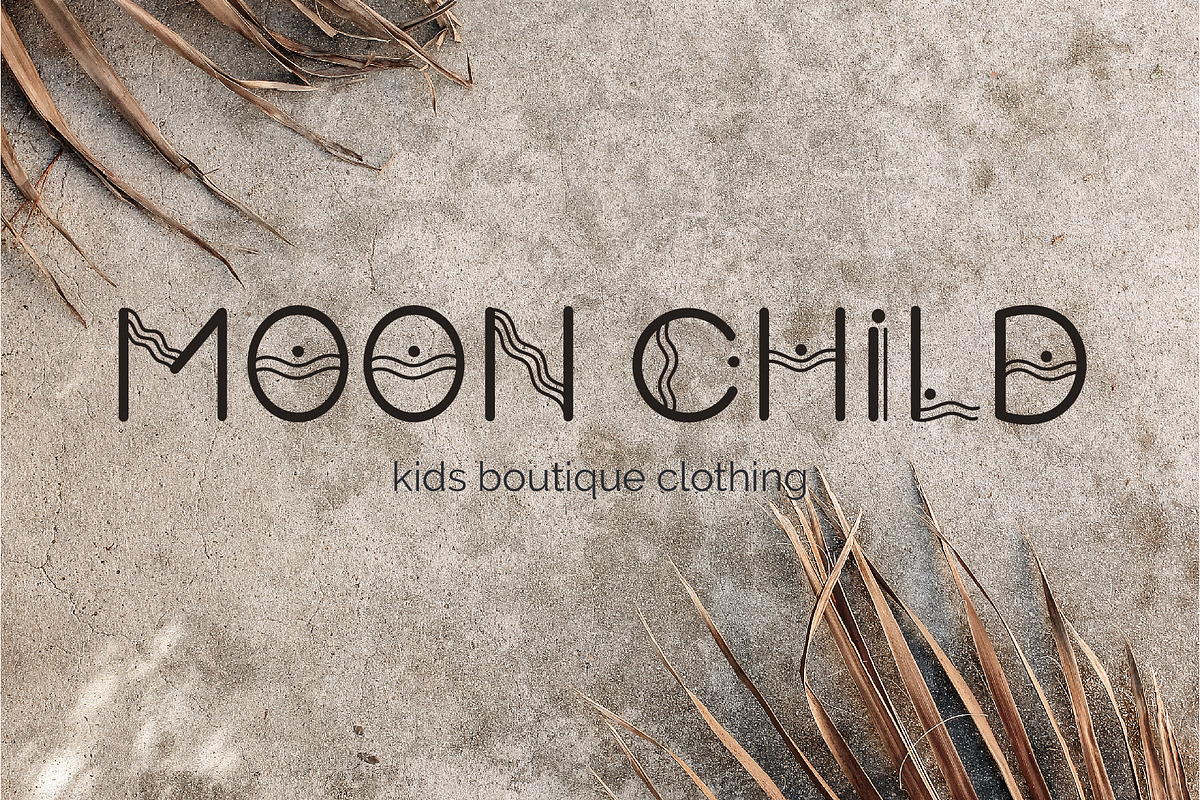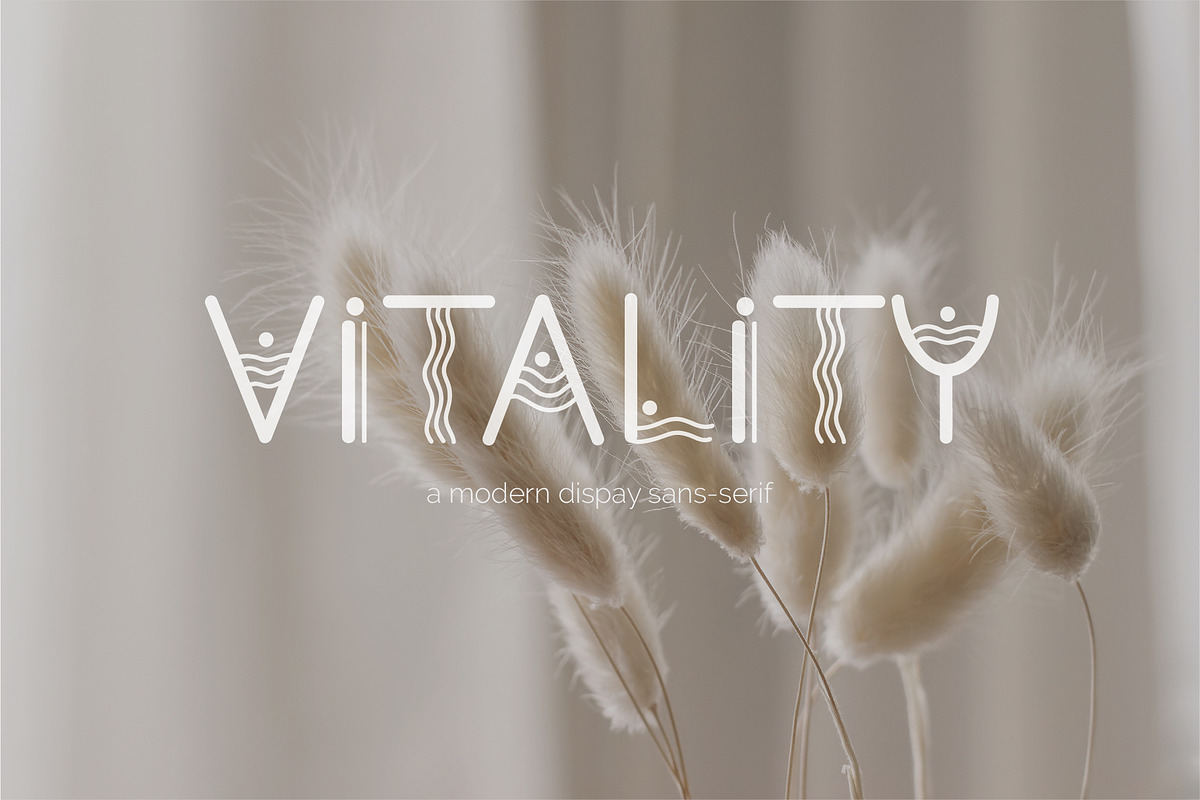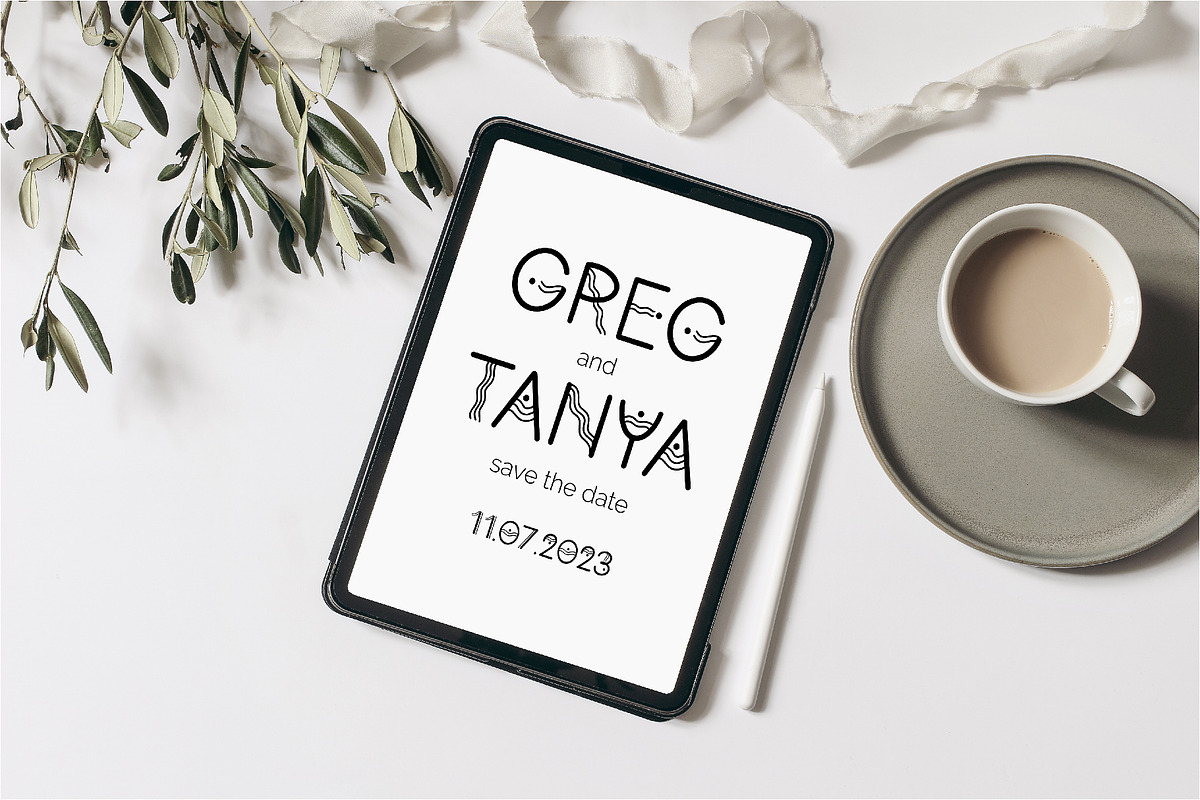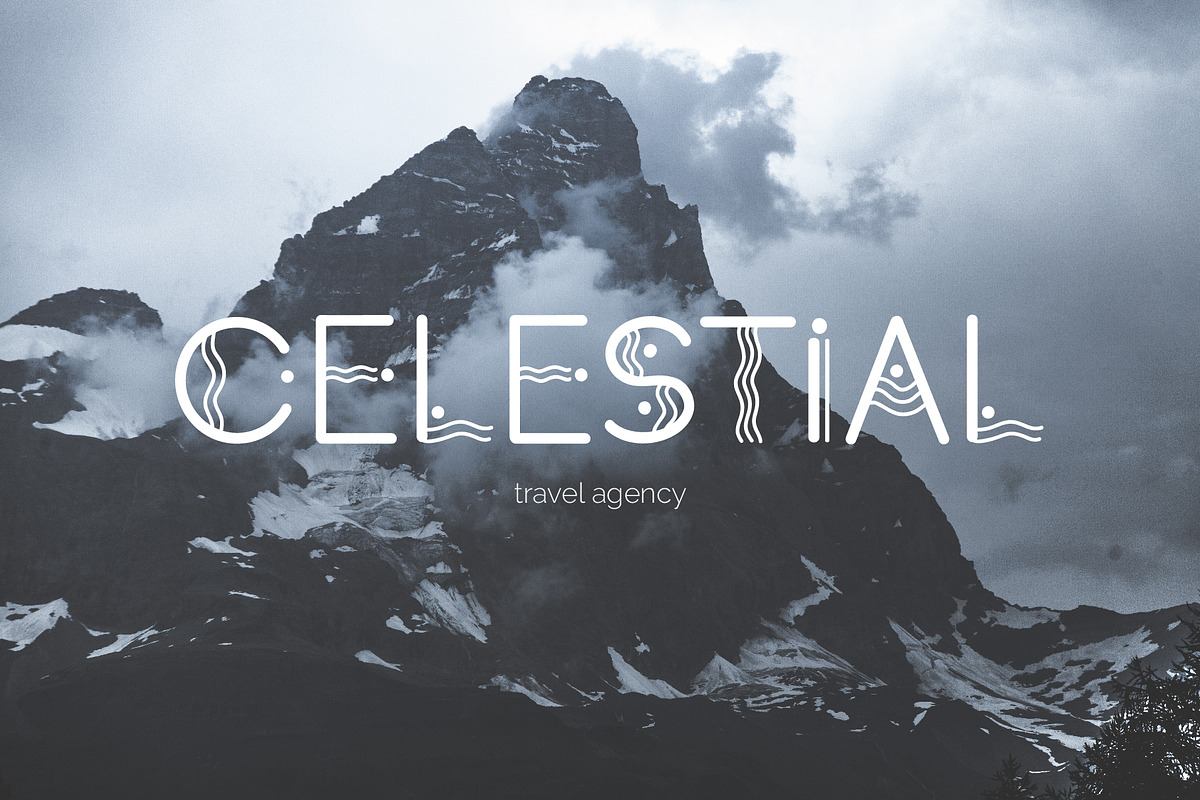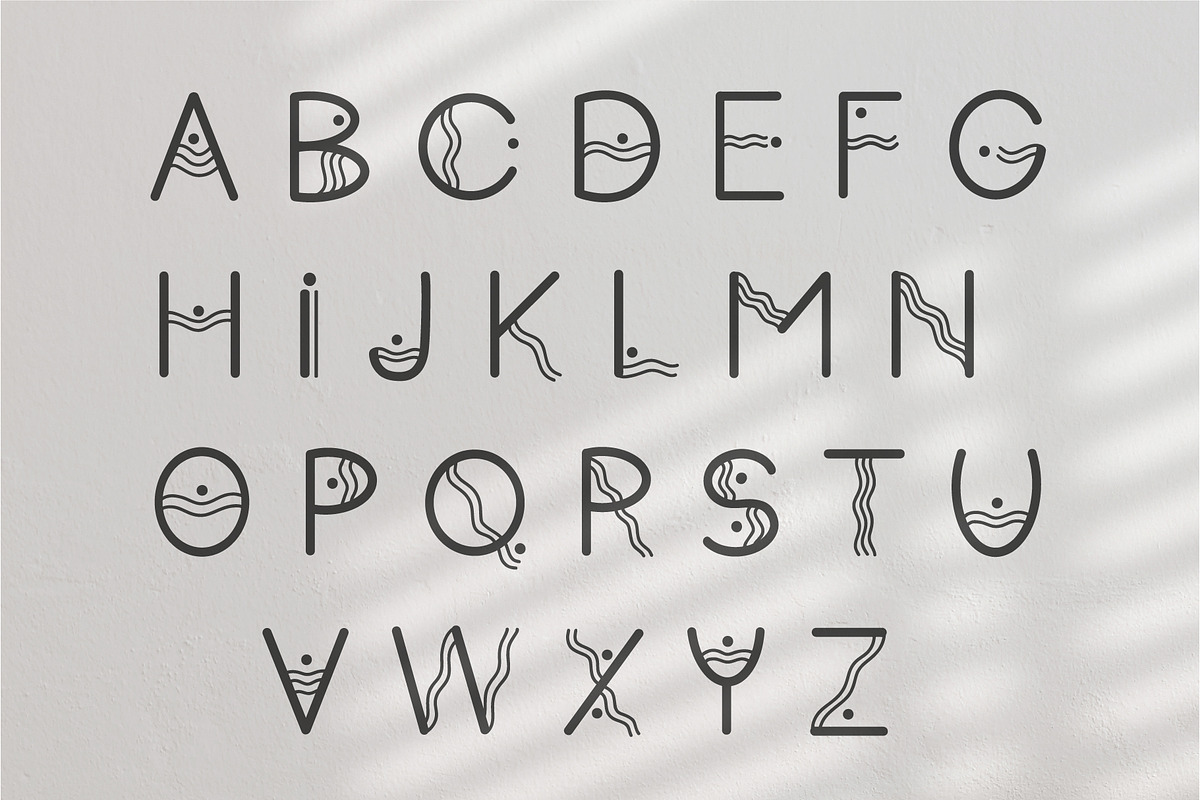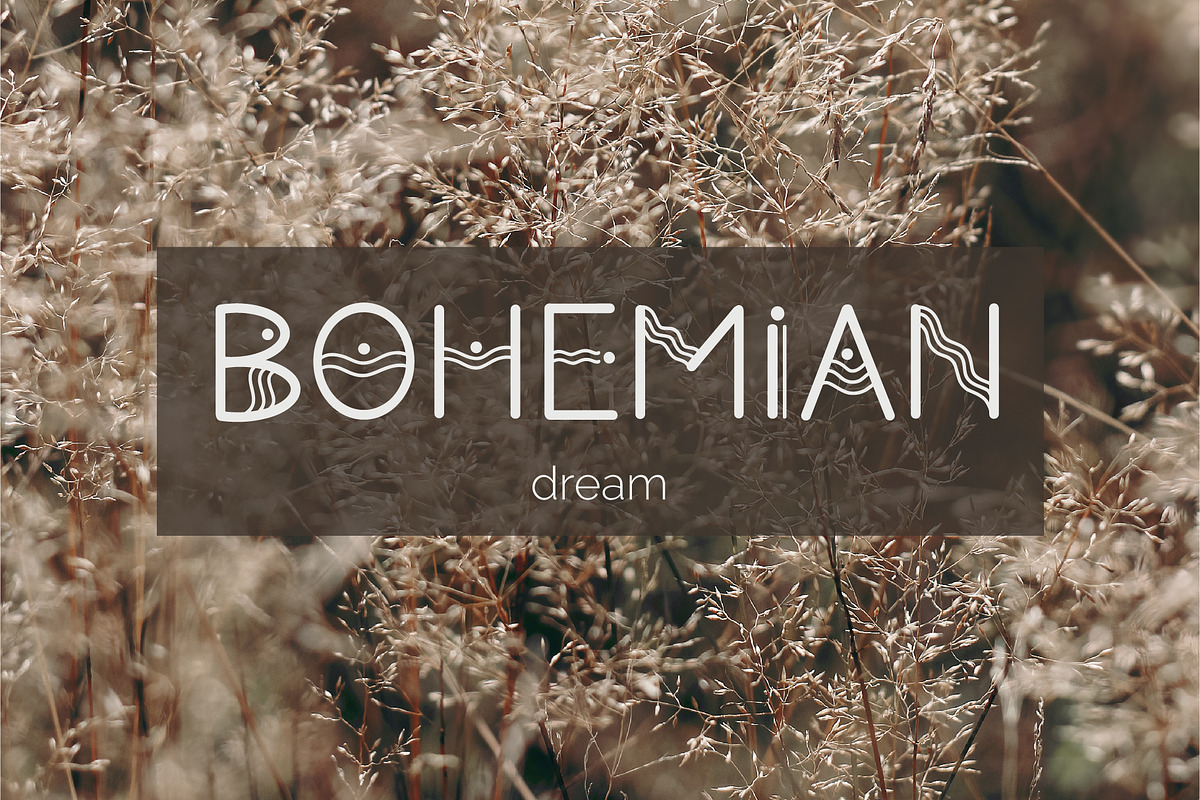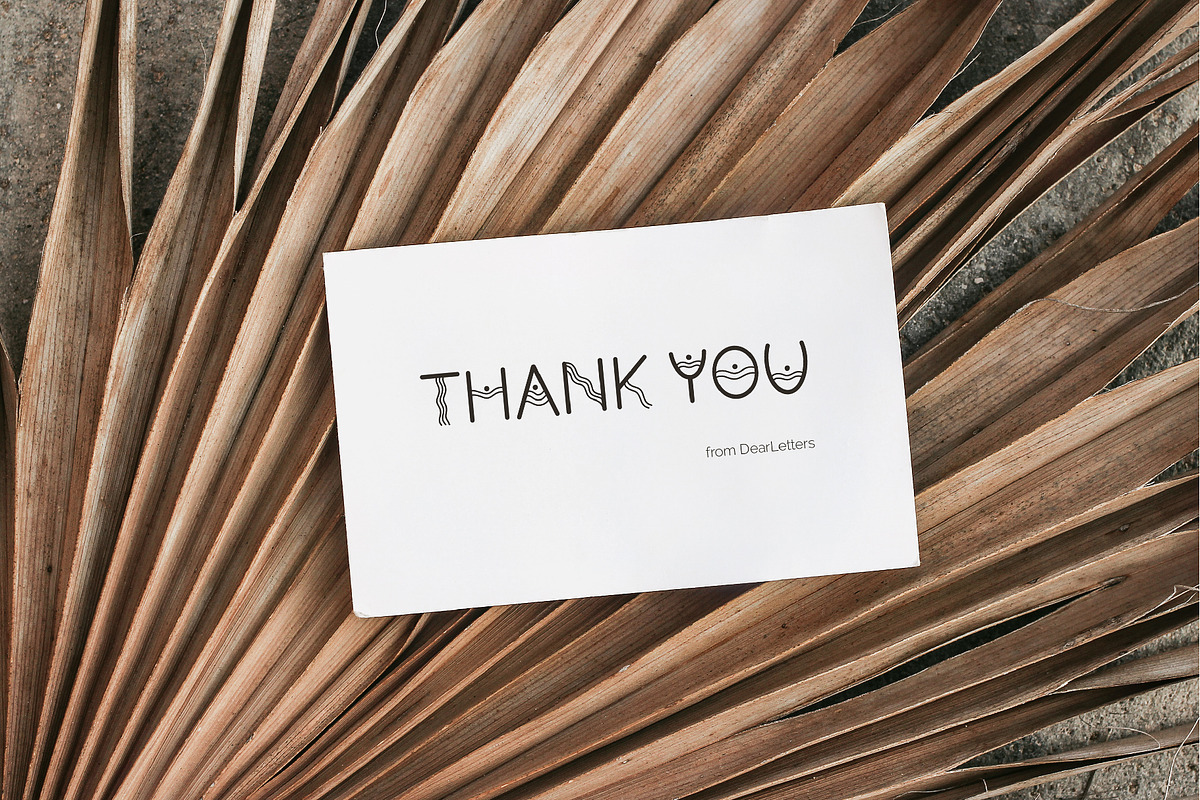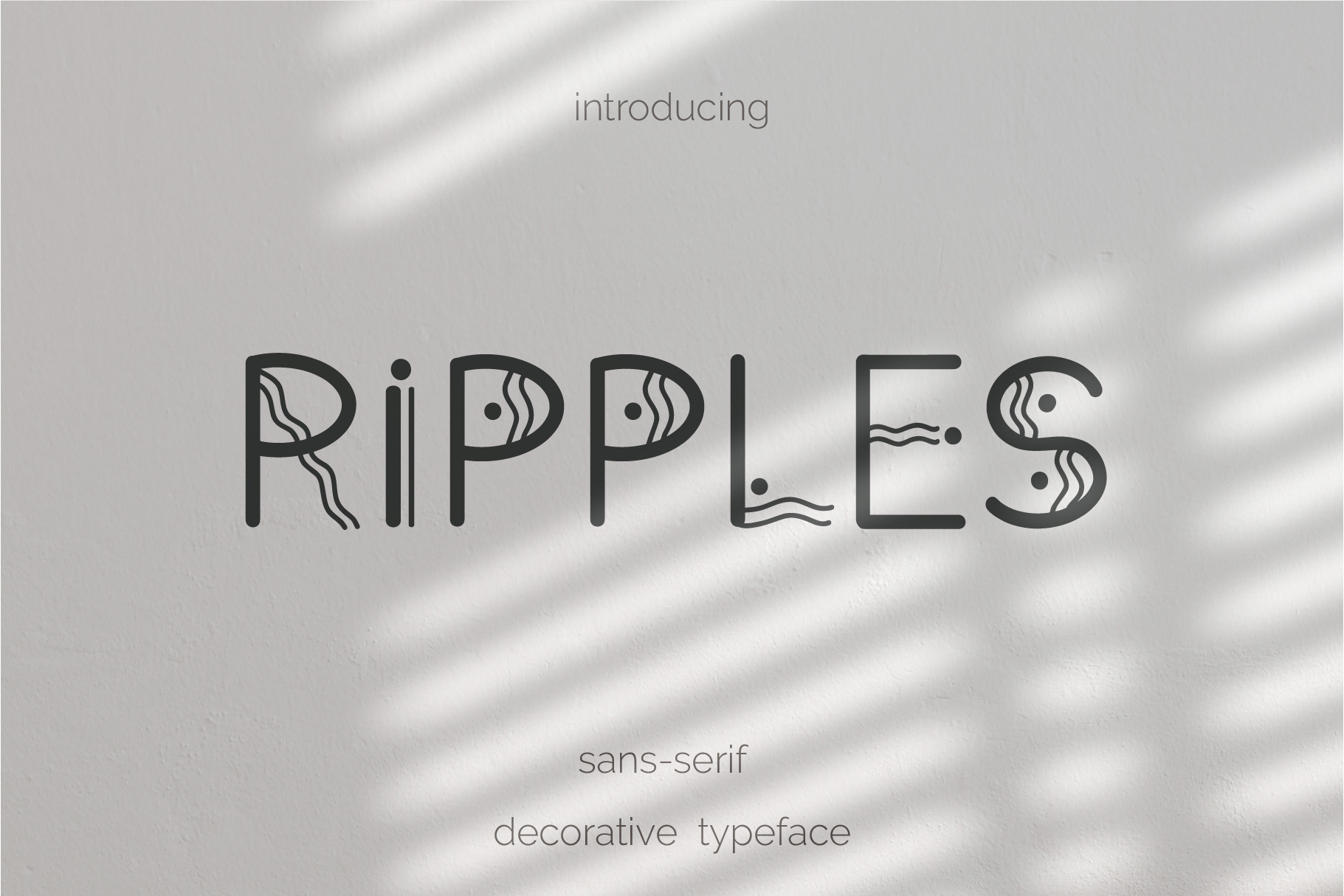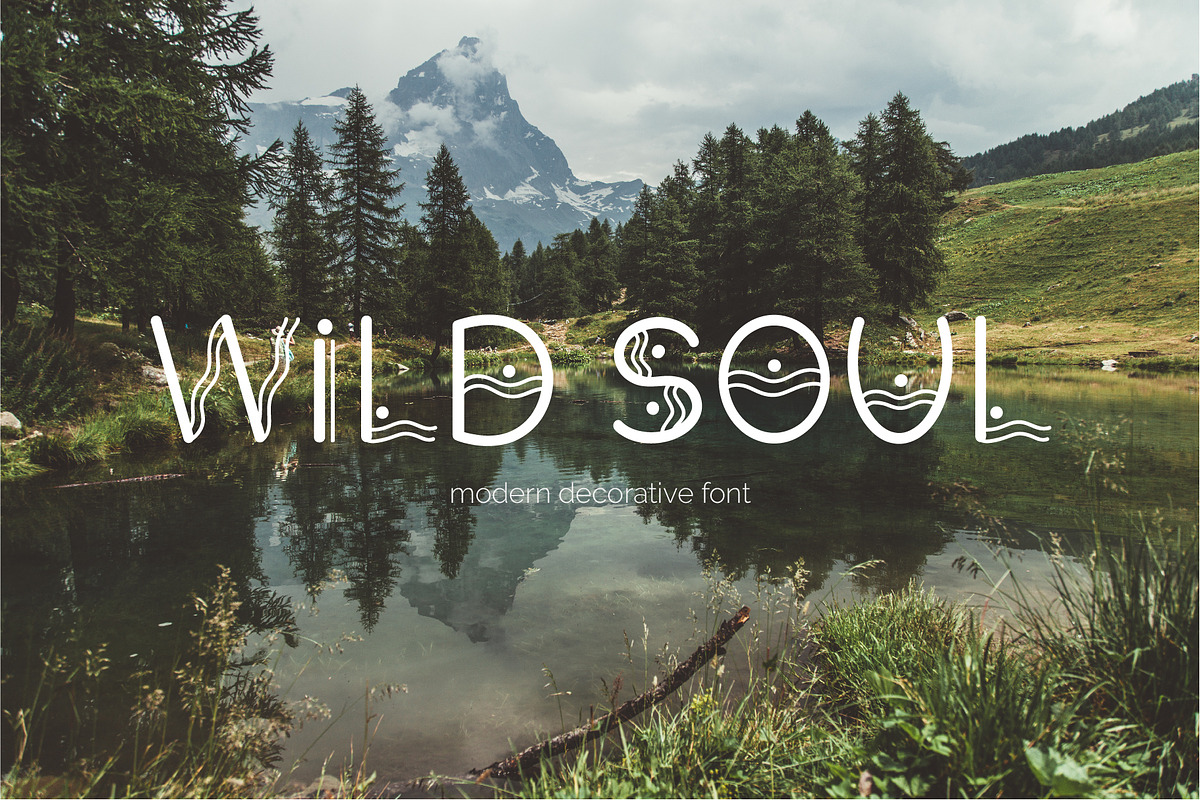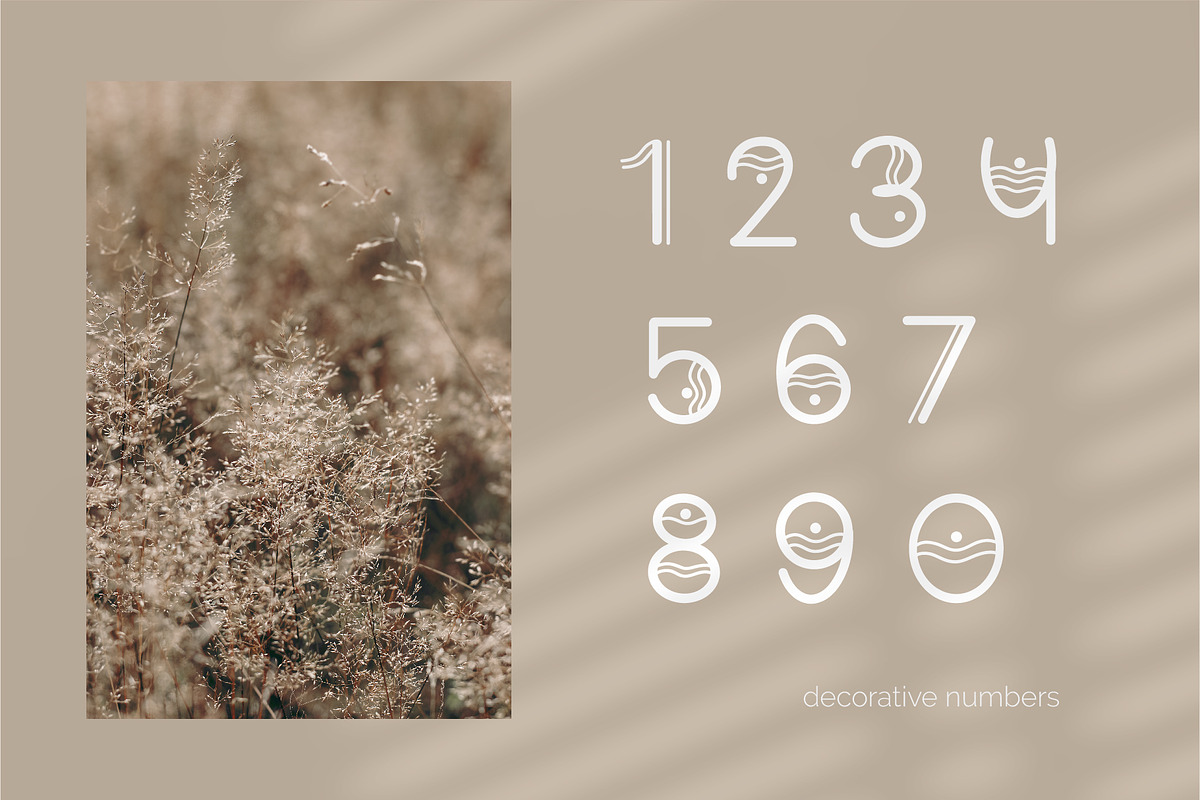
Ripple. Bohemian Sans Serif Typeface
Ripple is a modern decorative sans serif uppercase typeface.
This font is perfect for branding projects, logos, wedding decor, invitations, nursery printables, social media, signs and so much more!